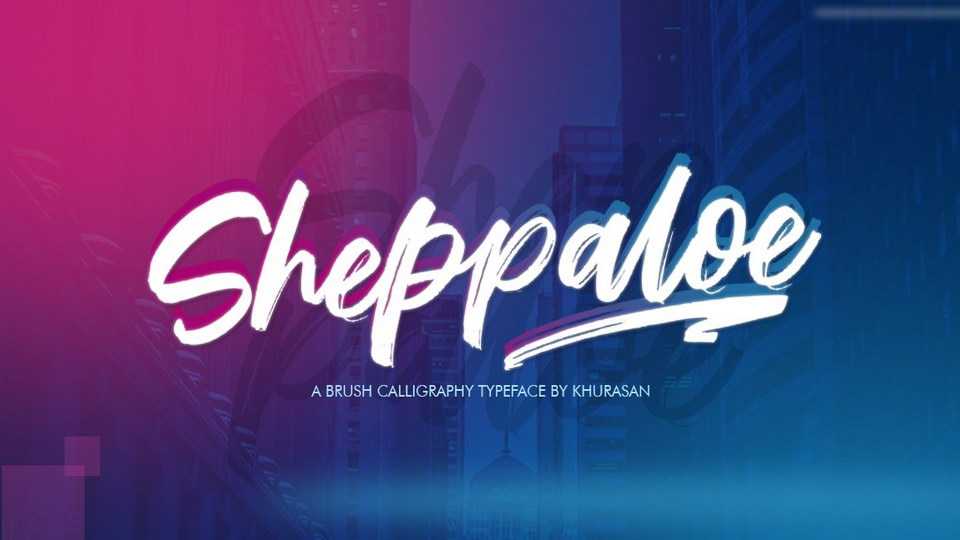
Download Sheppaloe font, a stylish handwritten brush script with rough and textured look. Sheppaloe font fits great for posters, street style design, branding and merchandise.